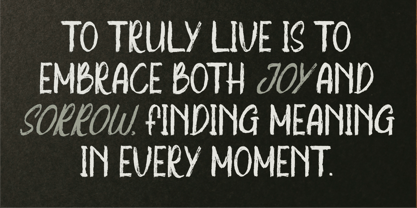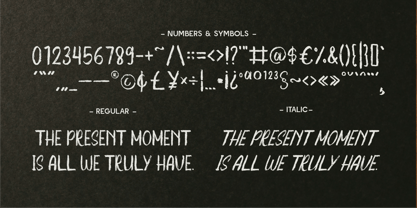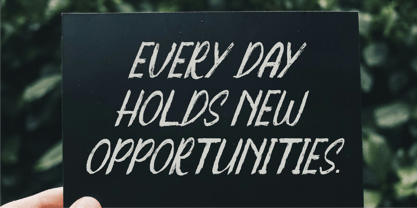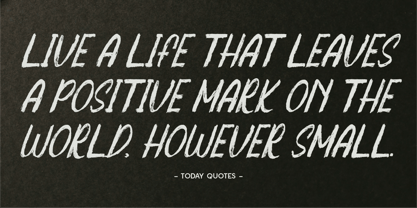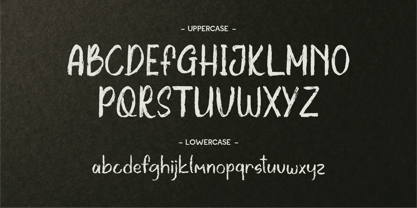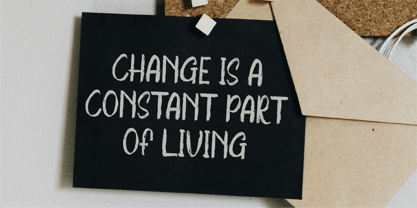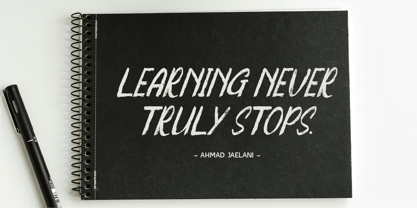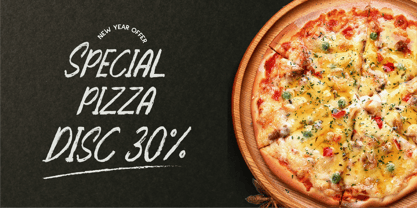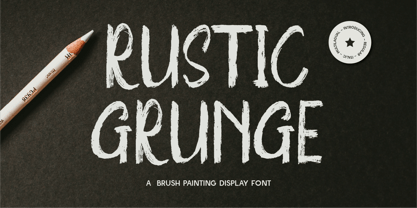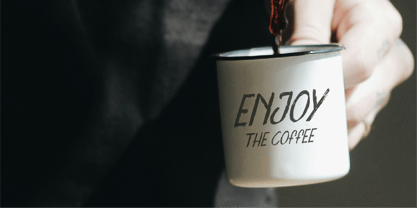
CF Rustic Grunge
by Indotype
The CF Rustic Grunge Font Family was designed by Gilang Mei Nugraha, Frederik Aristaputra and published by Indotype. CF Rustic Grunge contains 2 styles and family package options.
Rustic Grunge – A Raw & Textured Brush Display Font
Get ready to make a bold statement with Rustic Grunge, a hand-painted brush display font that exudes raw energy and authenticity. With its rough, textured strokes and imperfect edges, this font captures the spirit of grunge, street art, and urban design.
Perfect for posters, album covers, branding, apparel, social media, and creative projects, Rustic Grunge brings a touch of rebellion and handcrafted artistry to any design. Whether you’re aiming for a vintage, industrial, or distressed aesthetic, this font adds the perfect bold and rustic touch.
Why Choose Rustic Grunge?
🖌 Authentic Brush Texture: Hand-painted strokes with raw, natural imperfections.
⚡ Edgy & Bold: Ideal for branding, posters, music covers, and street-style graphics.
🎨 Versatile & Impactful: Works for rustic, grunge, vintage, and urban designs.
🔠 Multiple Styles: Regular & Italic versions for more design flexibility.
- Regular and Italic
Designers: Gilang Mei Nugraha, Frederik Aristaputra
Publisher: Indotype
Foundry: Indotype